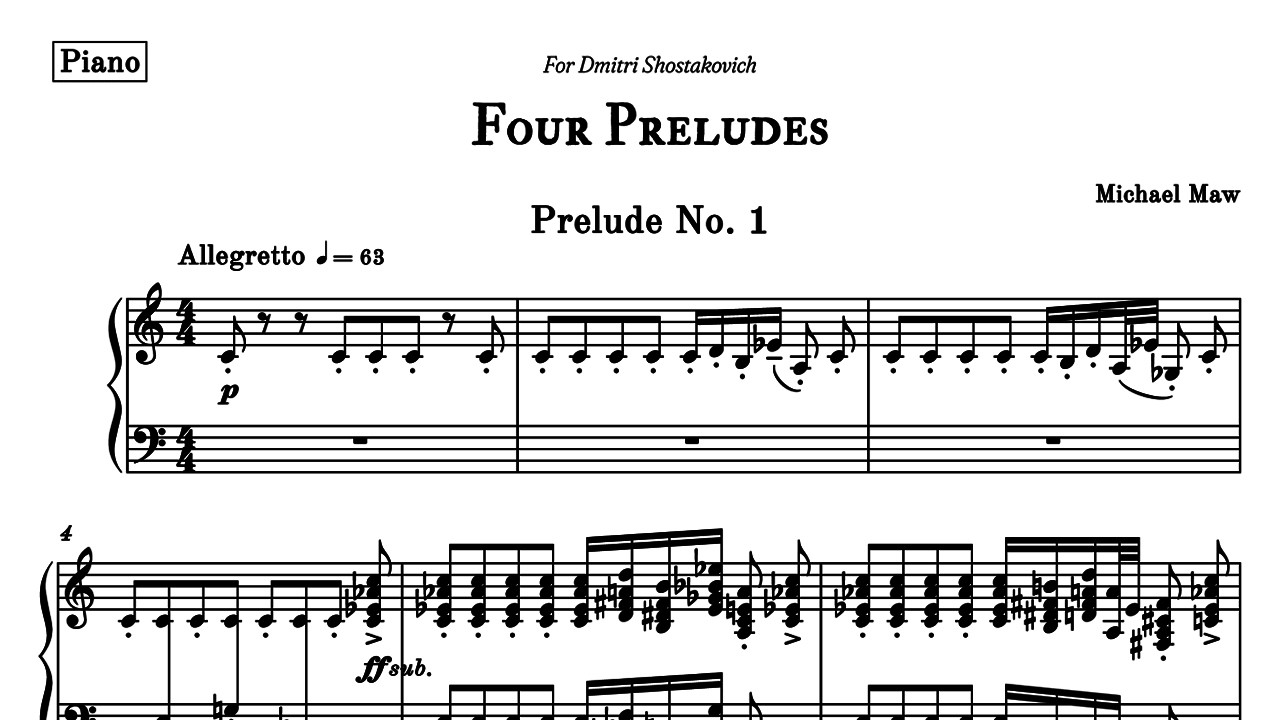
This is my latest engraver font design: “Vintage BH”, a vintage SMuFL font coming in 3 weight, Light (Vintage BH Light), Standard (Vintage BH), and Heavy (Vintage BH STD).
Bravura Text is just Bravura music symbols, for use in text.
You’ll already have Nepomuk installed, which is similar to Old Music Standard; both are designed to evoke the style of the type punches used on plate engraving.
i really love this font, but does anyone know if there is any possibility of having a treble clef that doesn’t lean over quite as much like an unbalanced xmas tree?
very good to hear! I really do love this font, to be honest it is exactly what I have always wished for a music font to be…giving an old school printed quality to it…which almost makes it looks like was actually typeset and printed before the advent of computers…which personally I really love. Its a great font!
I have one other thought which is of course subjective, I don’t know why but the ‘tr’ trill sign feels somewhat out of place with the rest… when comparing with the dynamic markings and so on, it almost feels too precise and clean, somewhat more on the generic side - I wonder if it could possess some of the rougher, slightly chunky and quirky appearance of the dynamics? But that’s just me, you and others may disagree but just a thought.
its not that the slanted one looks bad per say…but its the kind of thing where when every system has the same slanted treble clef it starts to look not great. In an ideal world each use of it would be slightly different I suppose for vintage imperfection look, but I just found it to be too much when its all the time. Thanks for adding the straight one, I haven’t had a chance to try it yet, but I will soon.
It looks just right to my eyes The other benefit of a slanted treble clef is that it allows tighter staff spacing in the conductor’s score. The clefs won’t collide as easily. How well a clef stacks vertically is a crucial feature.
I recently bought this font and I’m so impressed with it - it’s just gorgeous! Definitely making this my new default music font in Dorico for all scores going forward. I recently used it to produce a new edition of my Four Preludes for Piano and I’m really pleased with the result…